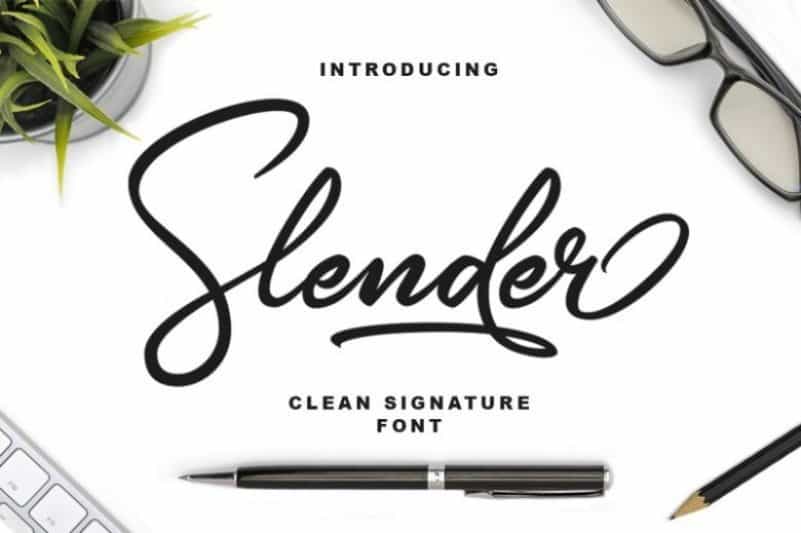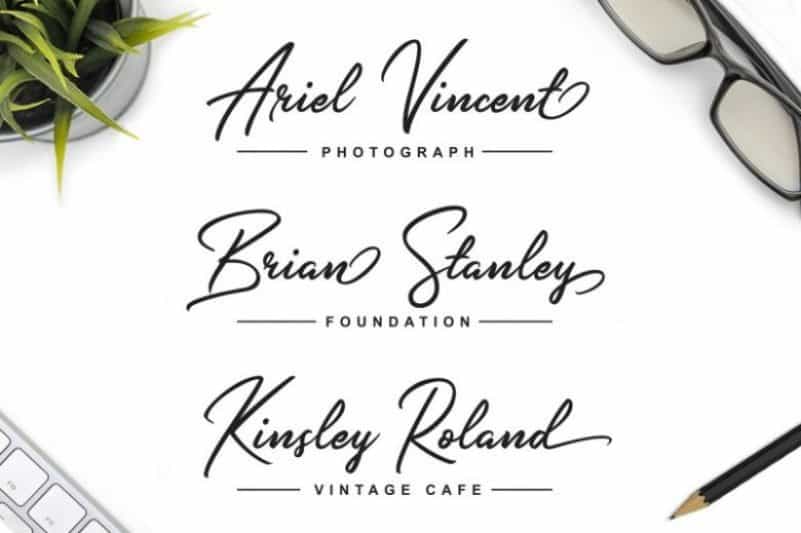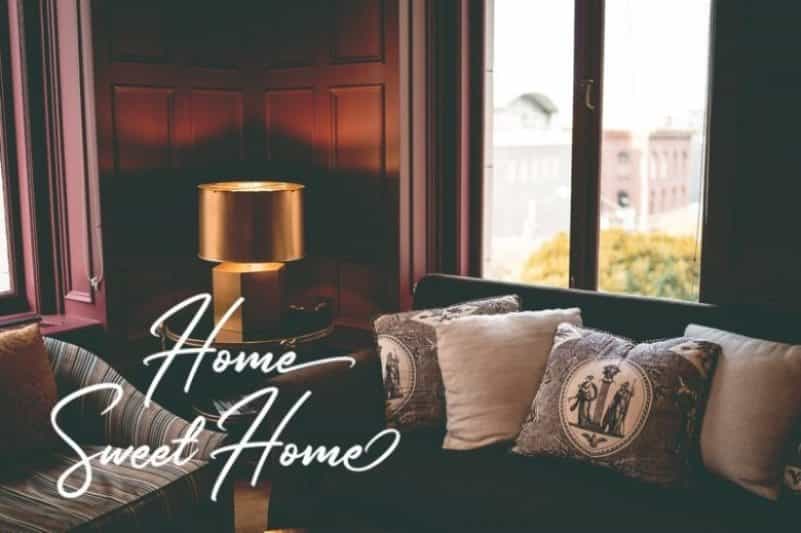
Slender is marked as simple trademark script typeface. It is fully manually made and has an absolutely non-industrial appearance. It is suitable for making wedding invitations, product branding, elegant packaging of products especially for beautiful Instagram or other social media post creation, logos, and many more uses.